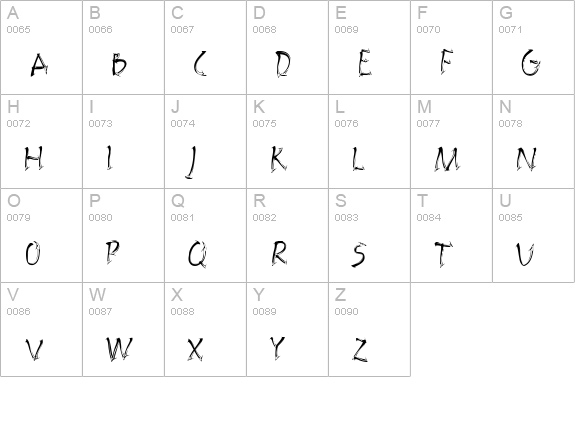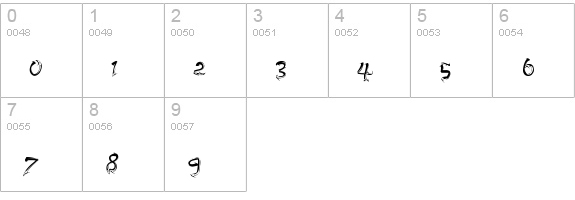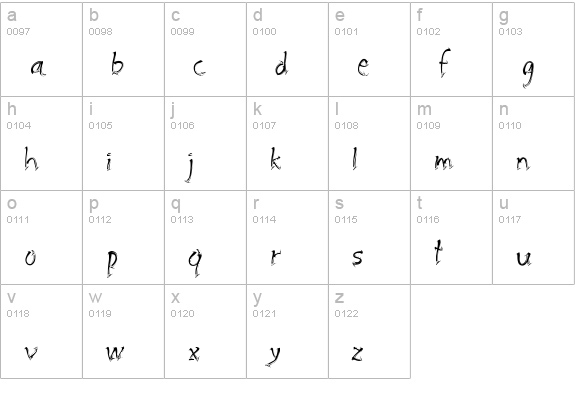
Embrush font is a stylish and elegant typeface that exudes sophistication and charm. With its unique brush strokes and modern design, Embrush is perfect for adding a touch of flair to any project. Whether you're creating invitations, posters, or branding materials, this font will elevate your designs and make them stand out. What's even better is that Embrush font is available for free download at FontsMarket.com. You can easily access this beautiful typeface and use it in your projects without any cost. Embrace the beauty and versatility of Embrush font today and take your designs to the next level.